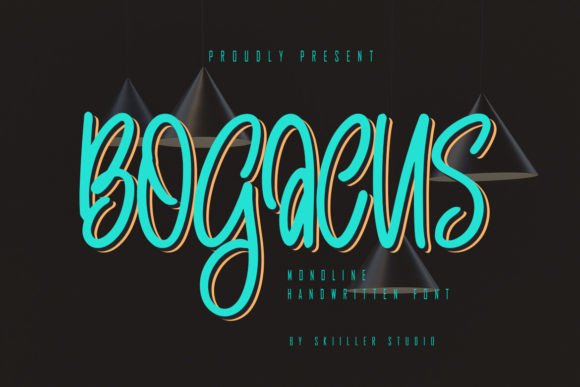
The Urban Charm of Bogacus Font: A Designer’s Delight
I’ll never forget the time I was working on a branding project for a trendy new coffee shop. My client wanted a bold, eye-catching logo that would stand out on a crowded street. I spent hours scouring font libraries, but nothing seemed quite right. That was until I stumbled upon Bogacus Font. This modern paint-brushed handwritten font was exactly what I needed to give my design a stylish, urban edge.
A First Impression: Bogacus Font Review
So, what makes Bogacus Font so special? Let’s dive in and take a closer look.
• ✨ Confidence-inspiring**: Bogacus Font reads as strong, confident, and dynamic – perfect for headlines and logotype projects.
• ✅ Urban character**: This font adds a ton of personality to your designs, making them perfect for brands that want to stand out.
• 💥 Versatility**: Bogacus Font can be used for a wide range of projects, from logos and branding to posters and social media graphics.
While Bogacus Font is an amazing addition to any design project, there are a few things to keep in mind:
• 🤔 Legibility at small sizes**: As with many script fonts, Bogacus can be a bit tricky to read at very small sizes. Make sure to test it out at different scales to ensure it works for your project.
• ⚠️ Overuse of swashes**: While the swashes and flourishes in Bogacus are beautiful, be careful not to overdo it. Too many swashes can make your design look cluttered and messy.
The Story Behind Bogacus Font
Bogacus Font was designed with one goal in mind: to create a modern, urban font that would add a touch of personality to any design project. Inspired by the graffiti and street art of the city, Bogacus combines bold, confident lines with a playful, hand-painted feel.
What is Bogacus Font best used for? Bogacus Font is perfect for headlines, logotype projects, and any design that needs a bold, urban edge.
Is Bogacus Font suitable for body text? While Bogacus is beautiful, it’s not ideal for long blocks of body text. Stick to headings and titles for the best results.
Does Bogacus Font support OpenType features? Yes, Bogacus Font includes advanced OpenType features, including glyphs, swashes, and stylistic alternates.